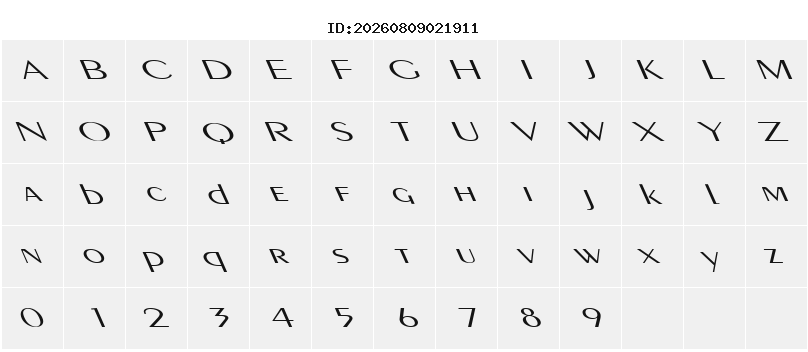
Pig Nose Typ Leftified.ttf is a modern, elegant sans-serif font designed for ultimate readability and visual harmony. Perfect for branding, headlines, web design, and print materials.